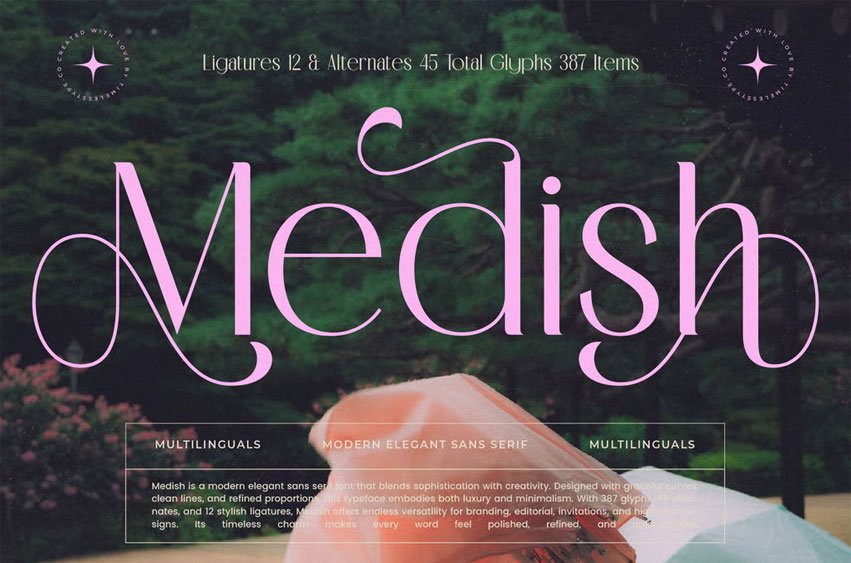
Medish Font is a modern elegant serif crafted with refined curves, artistic swashes, and balanced proportions that bring a luxurious yet contemporary feel to every composition; featuring 12 ligatures, 45 alternates, and 387 meticulously designed glyphs.
This typeface delivers exceptional versatility for branding, fashion editorials, invitations, logos, packaging, and high-end visual identities, making every word feel polished, expressive, and effortlessly sophisticated with full multilingual support.